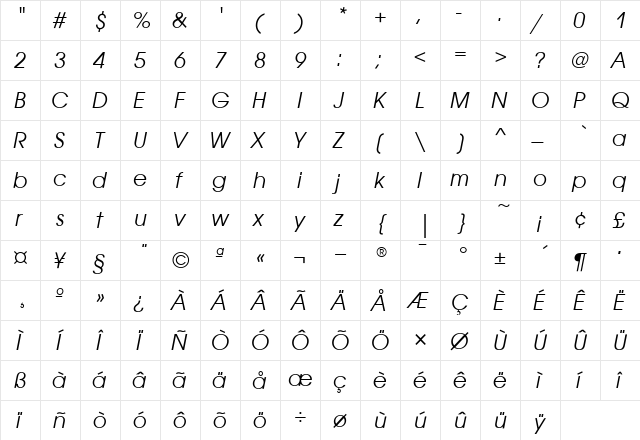
AvantGardeITC Italic
Design Context for AvantGardeITC Typeface
AvantGardeITC offers clean, dependable letterforms without strong stylistic allegiance, making it a practical choice for designers who need flexibility. The slanted form adds forward momentum and visual energy.
Pro Tip: Use AvantGardeITC for emphasis, pull quotes, and subheadings where its slanted energy can add rhythm to the layout.